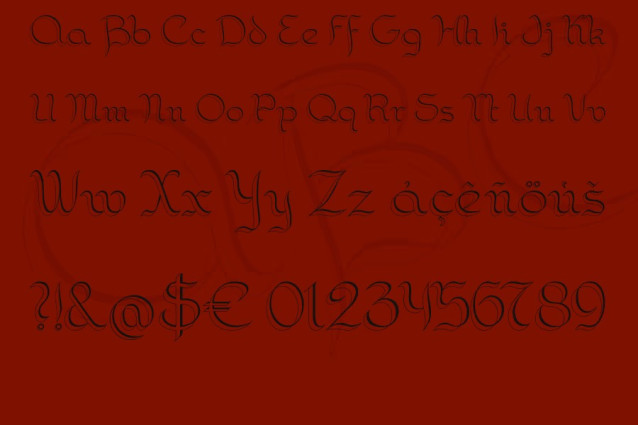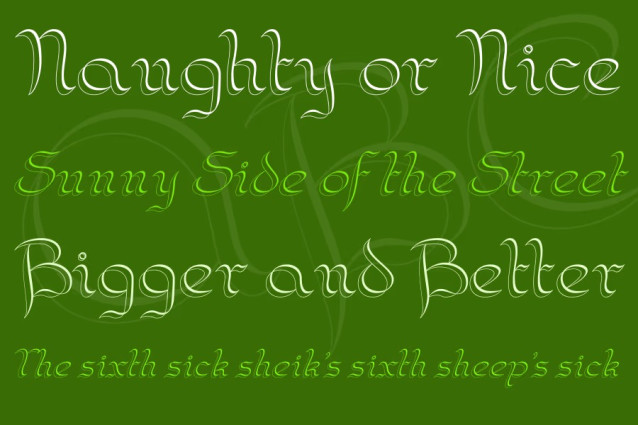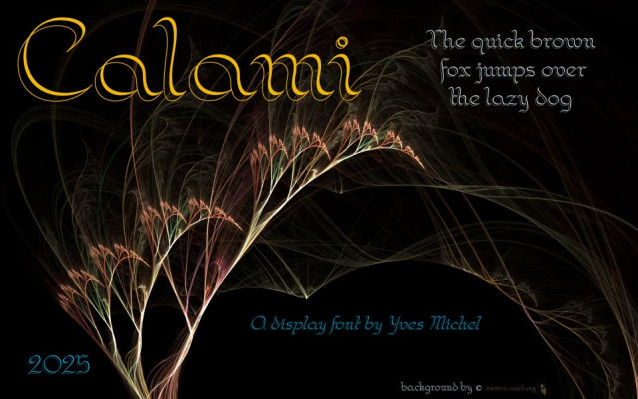
Calami Font
Calami Font – This font is inspired by an exercise in penmanship from “The Zanerian Manual of Alphabets and Engrossing”, book digitized by David Grimes (https://masgrimes.com/)
I scanned and digitized it and transformed it from back italic to regular.
It’ a calligraphic font made with a double-pointed pen (light on the left and broad on the right), like the “Scroll Nibs 10” from William Mitchell Ltd, “Twin Nib” from Kaweco ou “Twin Italic point” from Bock.